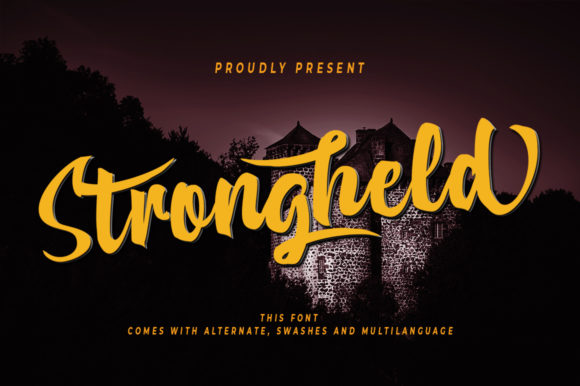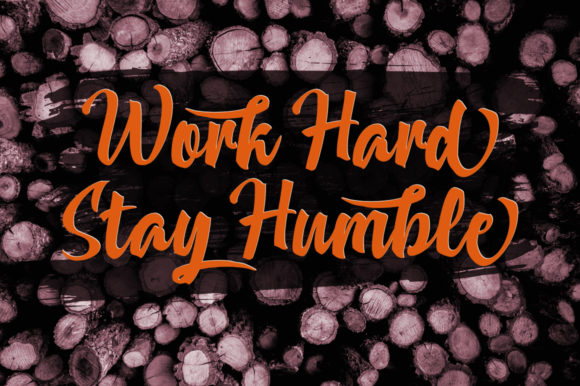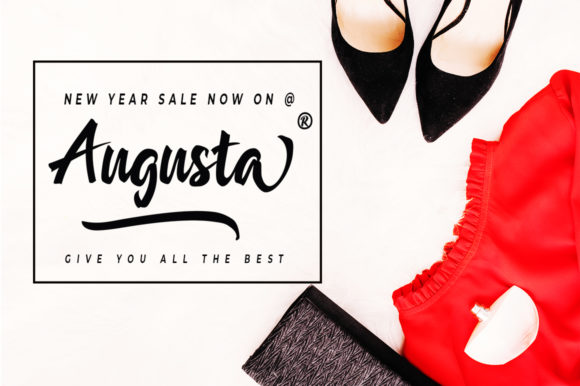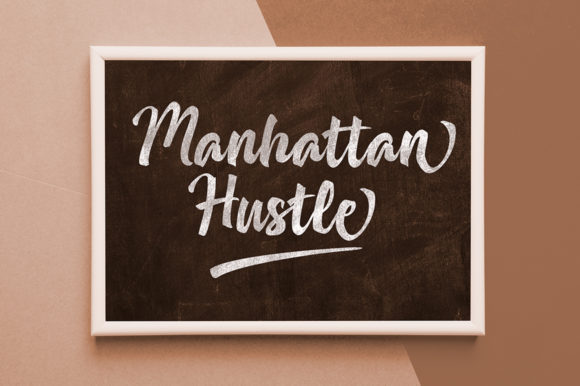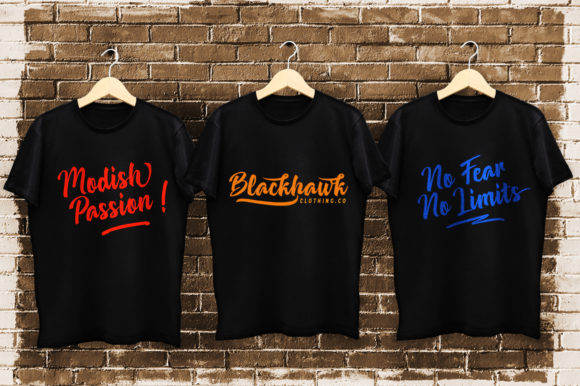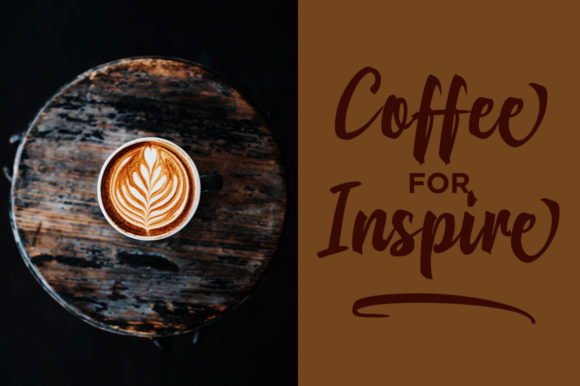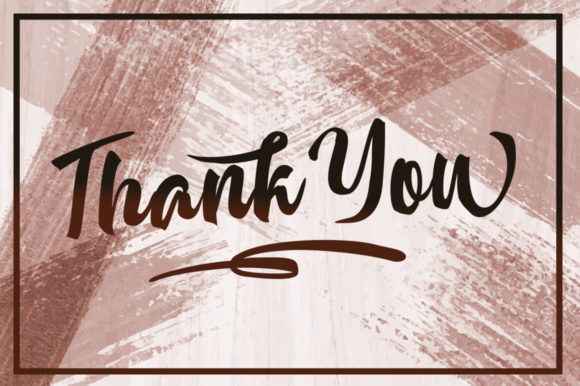
HomeScript FontsStrongheld Font Script Fonts Strongheld Font FacebookXPinterestWhatsApp Strongheld Font Poster 2 Strongheld Font Poster 3 Strongheld Font Poster 4 Strongheld Font Poster 5 Strongheld Font Poster 6 Strongheld Font Poster 7 Strongheld Font Poster 8 About Strongheld Font Strongheld is a stunning script that’s both big and beautiful. It will turn any design idea into a true standout! DOWNLOAD NOW People also explored Strings Fletcher Font Octin Stencil Beautification Font Ghost Hunter Font Zabrig Font Cerise Improvisation Font Barracuda Font 322 0 TagsStrongheld Font Previous articleDragonfly FontNext articleHoly Mordigan Font LEAVE A REPLY Cancel reply Comment: Please enter your comment! Name:* Please enter your name here Email:* You have entered an incorrect email address! Please enter your email address here Website: Save my name, email, and website in this browser for the next time I comment. Personal Use Free Luxima Personal Use Free Read more about this font Color Personal Use Free Read more about this font Pasile Personal Use Free Read more about this font The Winter Personal Use Free Read more about this font BLOG To increase your work productivity, choose the most readable fonts. In today's fast-paced work environment, where digital communication and information consumption are integral to our daily routines, the choice of fonts can significantly impact... Where to Buy American Fonts Online in 2024 Modern Sans-Serif Fonts That Brands Love in 2025 Exploring Font Trends